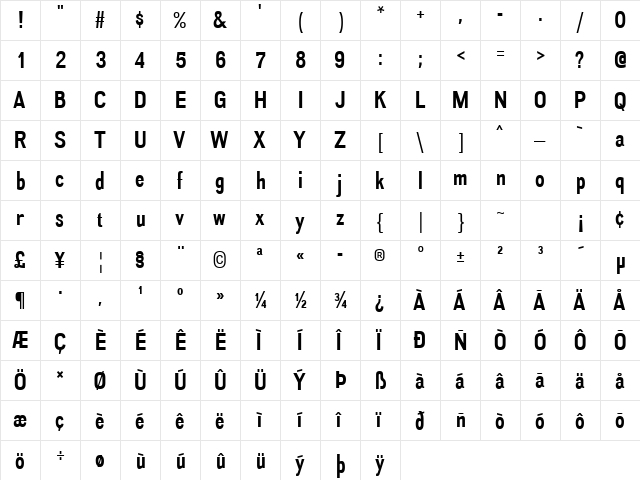
Akazan Bold
Design Context for Akazan Typeface
Akazan is a composed and adaptable typeface that performs quietly and consistently across a wide range of design contexts. The heavy weight commands attention and anchors typographic hierarchies.